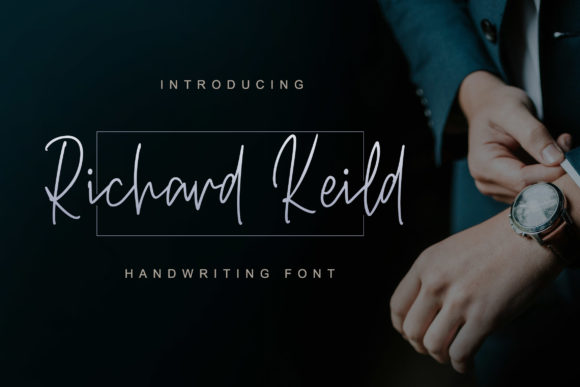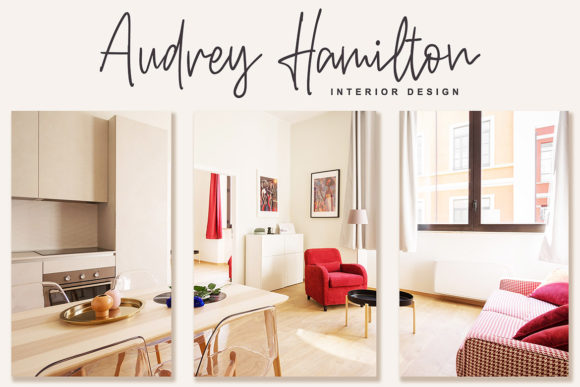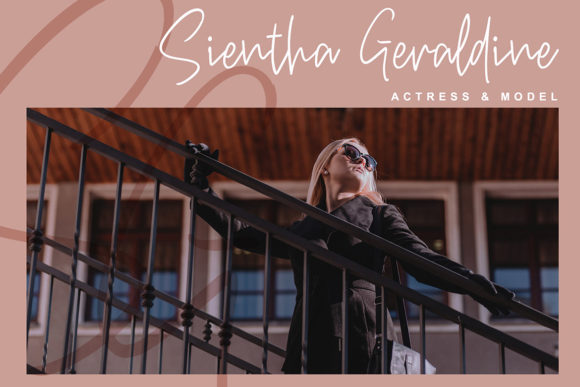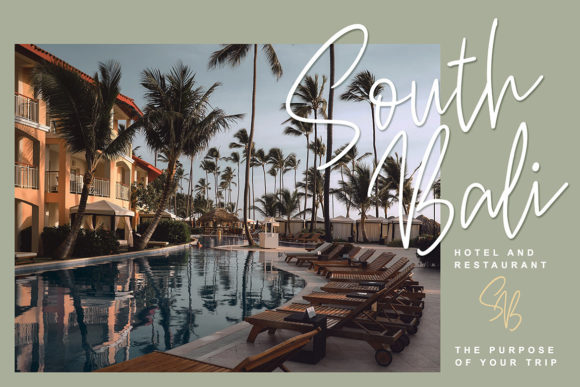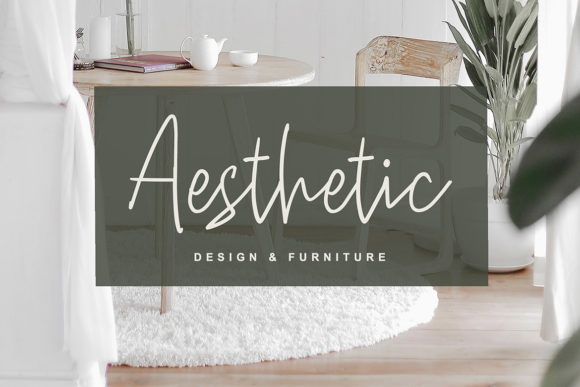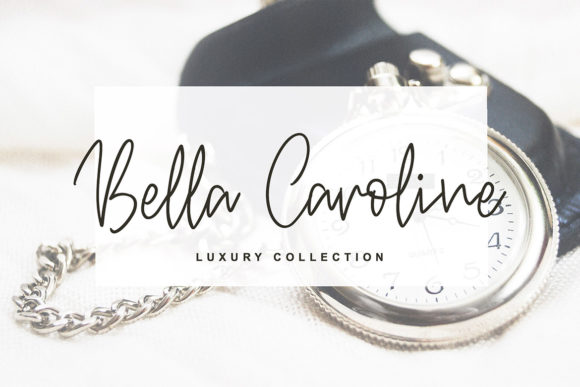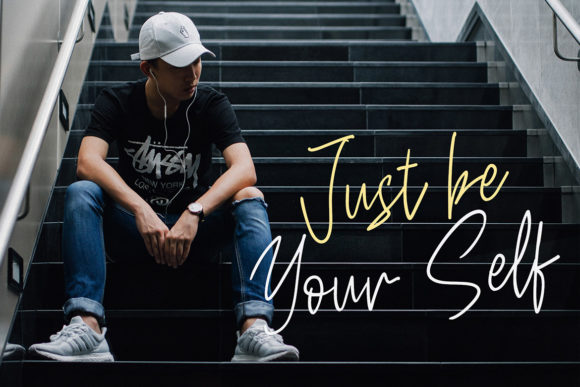
Richard Keild Font
Richard Keild is an elegant and romantic handwritten font with heaps of personality! Fall in love with its light and sophisticated charm.